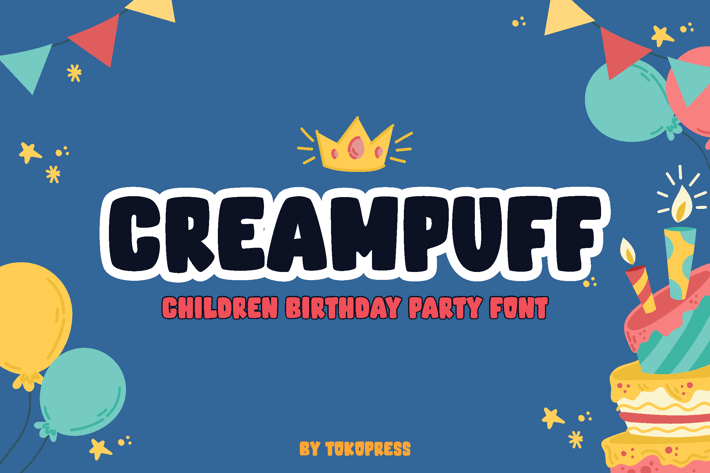
Creampuff - Kids Font
Creampuff - Children Font
Creampuff is a fun-loving, bold display font crafted with a long-tail keyword mindset: "playful kids font for birthday designs"—designed to bring joy and bounce into every letter. With chunky, rounded letterforms, low contrast, and a bubbly baseline rhythm, Creampuff instantly sets a cheerful and expressive tone. Its soft curves and comic-like proportions give it a friendly, energetic character that feels right at home in birthday invites, cartoon titles, or candy-themed branding.
Whether you’re crafting a colorful YouTube thumbnail, designing a kid-centric product label, or adding spark to a poster, Creampuff delivers standout personality with delightful legibility. The font’s colorful presence is inspired by party banners, stickers, and cake toppers—making it an easy favorite for any children’s design theme.
Creampuff’s vibrant personality and high-impact letterforms make it the ideal choice for child-focused branding, educational materials, event posters, and personalized gifts. From preschool classroom visuals to playful T-shirt designs, this font adds instant warmth, trust, and joy to any visual story.
Its soft edges and inviting tone appeal to both kids and grown-ups, allowing you to connect emotionally with your audience while keeping your design fresh and memorable.
Why Designers Love Creampuff:
- Bold Rounded Letterforms: Makes every headline pop with clarity and cuteness
- Child-Centric Design: Designed specifically with kids' themes, birthdays, and toys in mind
- Playful Flow: Bouncy baseline and rounded proportions give it a handcrafted, cheerful vibe
- Easy to Pair: Looks great with colorful illustrations or minimalist layouts
- Highly Versatile: From posters and packaging to editorial and app UI, it fits seamlessly